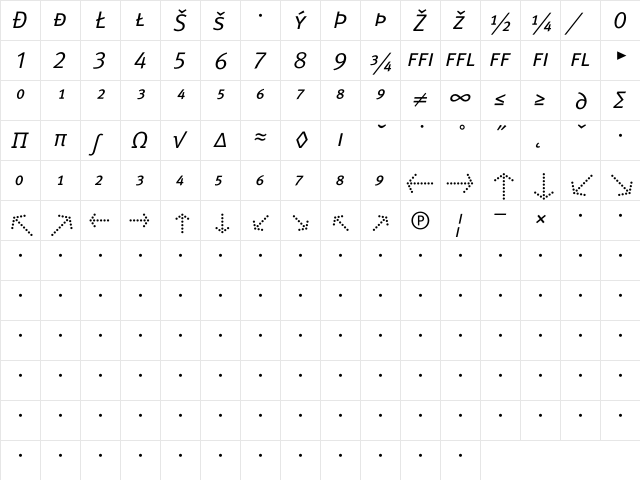
Meta Normal Caps Exp Italic Font Preview
Meta Normal Caps Exp Italic
Meta Normal Caps Exp Italic Font Details
| Style | Normal Caps Exp Italic |
Design Context for Meta Typeface
Meta is a composed and adaptable typeface that performs quietly and consistently across a wide range of design contexts. Its italic angle brings a sense of urgency and motion to the letterforms.
Pro Tip: Try Meta for annotation and caption copy alongside an upright companion — the contrast in angle creates a dynamic but ordered typographic system.